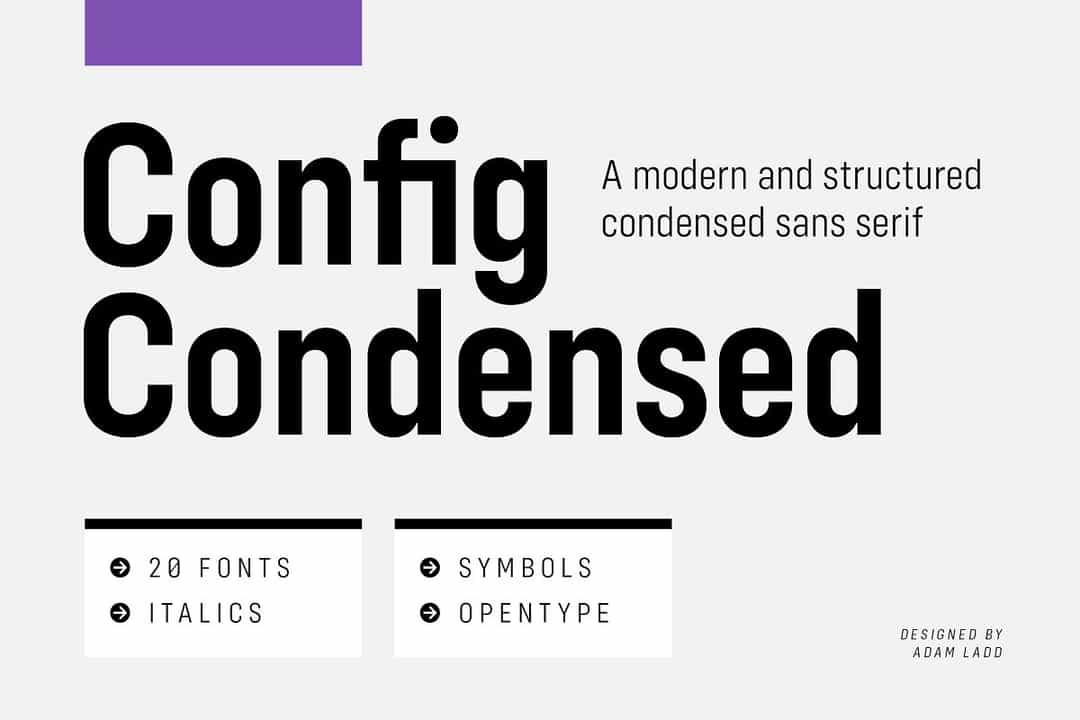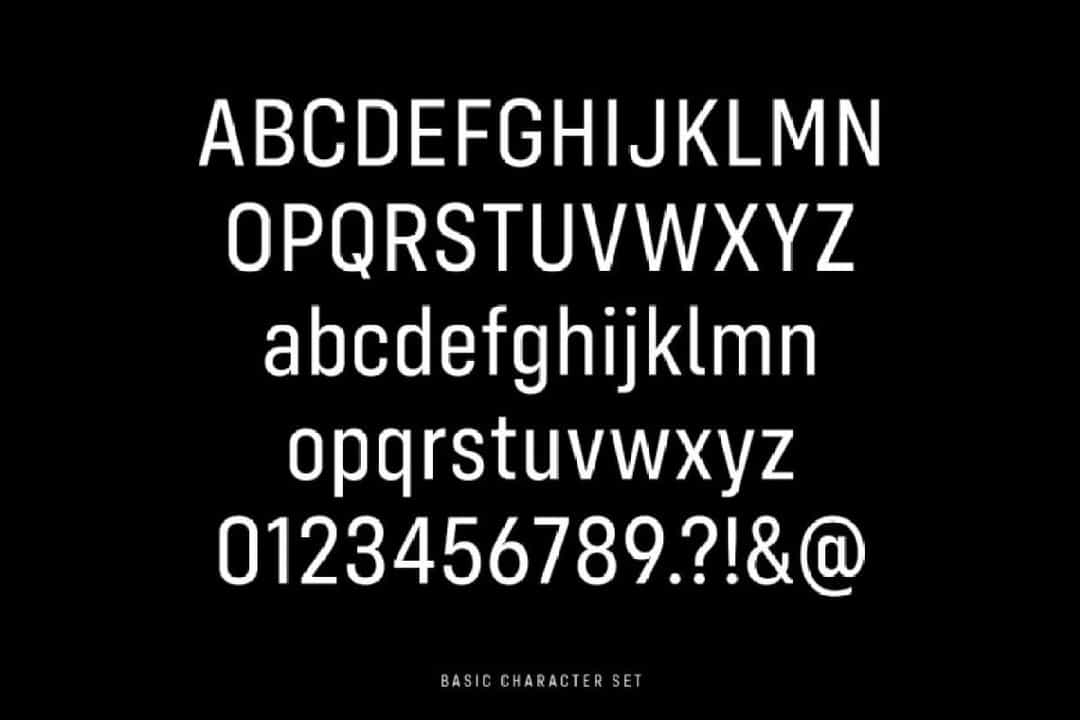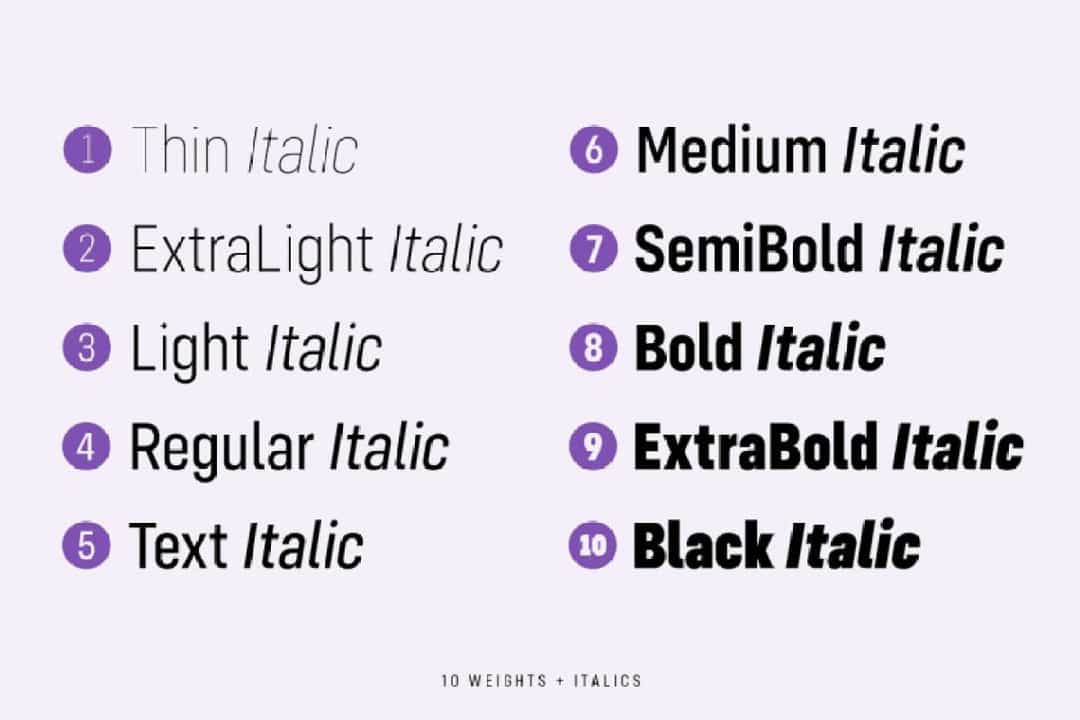
Config Condensed Sans is a sans-serif font family with a condensed look, that has a lot of open spaces and minimalistic design with 10 weights and their italics. Due to the fine details, Config Condensed Sans is highly suitable for creating text in large and small sizes and because of its condensed structure, it is rather efficient with space. Furthermore, due to the simplicity of the method it can be applied in many sectors such as layouts and websites and branding and so on.